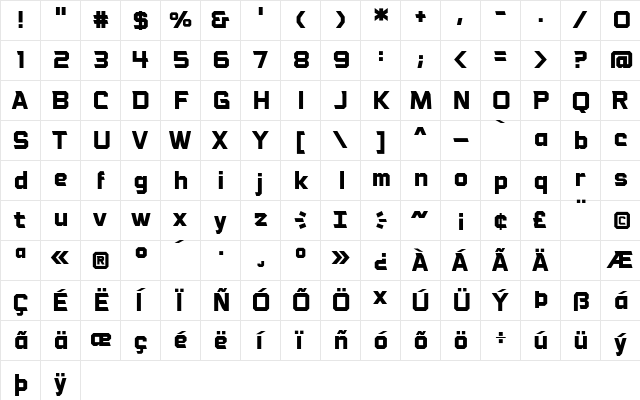
Voice Activated BB Bold
| Foundry | Nate Piekos. Blambot.com |
| Designer | Nate Piekos |
Voice Activated BB is a composed and adaptable typeface that performs quietly and consistently across a wide range of design contexts. The heavy weight commands attention and anchors typographic hierarchies.